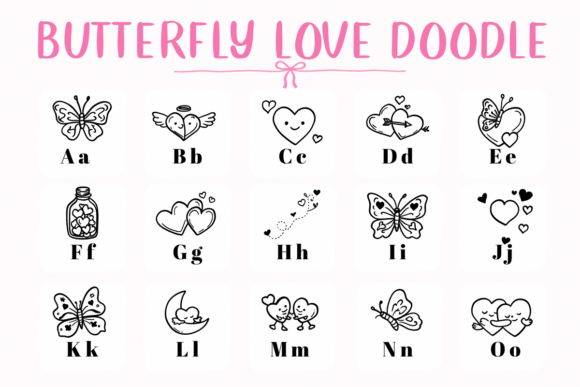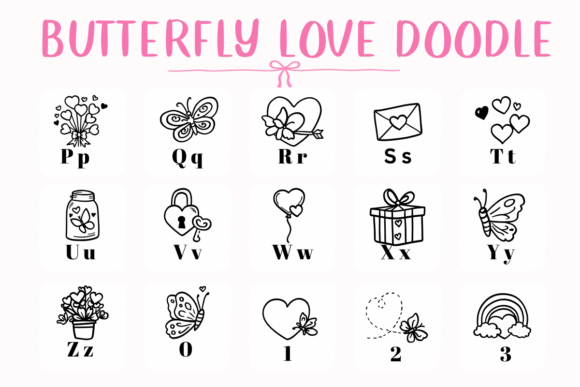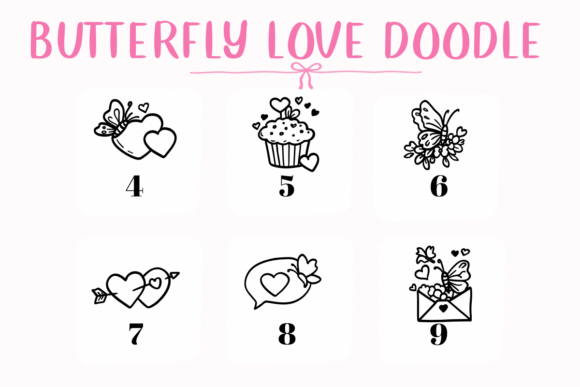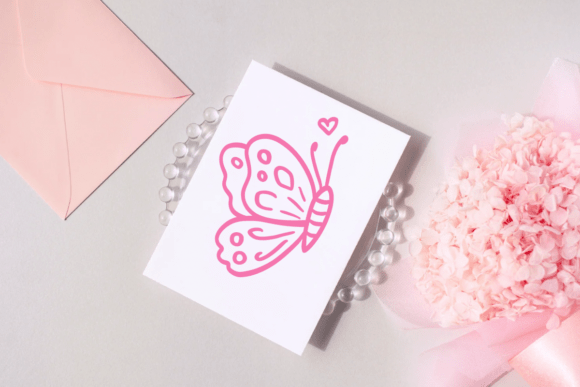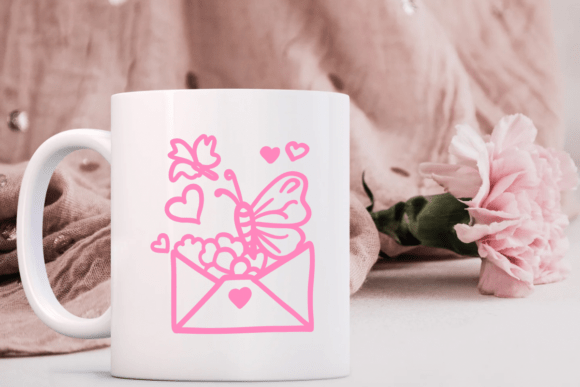
Unlocking Whimsy: A Deep Dive into Butterfly Love Doodle Font
Have you ever been in the midst of a design project, pouring your heart and soul into it, only to hit a creative roadblock? You’re not alone. I recall a particularly frustrating moment when I was working on a nursery wall art project for a client’s baby shower. I wanted to infuse the design with a sense of playfulness and wonder, but my usual go-to fonts just weren’t cutting it. That’s when I stumbled upon the enchanting Butterfly Love Doodle Font. It was like a breath of fresh air, a delightful collection of hand-drawn dingbats that instantly elevated my design.
A Personal Review: What I Love About Butterfly Love Doodle Font
So, what makes this font so special? Let’s dive into the good stuff! ✨
- ✨ Intricate illustrations: Each character in the Butterfly Love Doodle font is a standalone piece of art, featuring beautiful butterflies with heart-patterned wings, romantic jars, and charming gift boxes.
- ✅ Easy to use: The font is incredibly versatile and can be used in a variety of design projects, from digital to print.
- ✅ Perfect for whimsical designs: Whether you’re working on nursery wall art, wedding stationery, or social media graphics, this font adds a touch of organic sweetness to your designs.
While Butterfly Love Doodle Font is a stunning addition to any design project, there are a few things to keep in mind: 🤔
- ⚠️ Glyphs can be finicky: As with any OpenType font, you may need to dig into the glyphs panel to access certain characters or stylistic alternates.
- ⚠️ Pairing can be key: To get the most out of this font, it’s essential to pair it with a complementary font that allows the illustrations to shine.
Exploring Alternatives: Similar Fonts to Butterfly Love Doodle Font
While Butterfly Love Doodle Font is a unique gem, there are other fonts that share similar characteristics. Here are a few alternatives to consider:
The Story Behind Butterfly Love Doodle Font
While the true story behind Butterfly Love Doodle Font remains a mystery, it’s easy to imagine a designer sitting amidst a sea of colorful papers, surrounded by sketches of butterflies and flowers. Perhaps they were inspired by a whimsical garden, where love and nature entwine. Whatever the story, the end result is a font that embodies the beauty of imperfection and the joy of creation.